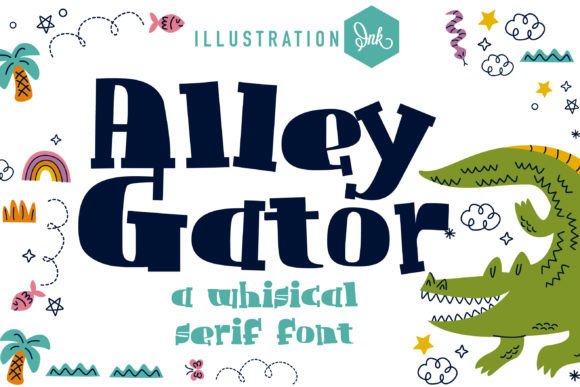
The Ultimate Guide to Alley Gator Font: Adding a Touch of Whimsy to Your Designs
I’ll never forget the time I was working on a project for a client who wanted a font that was both playful and elegant. I scoured the internet, tried out countless fonts, but nothing seemed to fit the bill. That was until I stumbled upon the Alley Gator Font! It’s a fun font that looks playful and fancy, with a mix of thick and thin lines that gives it a cool style. In this article, I’ll share my experience with Alley Gator, its features, and how to make the most of it in your designs.
An Honest Review of Alley Gator Font
So, what makes Alley Gator so special? Here are some things I love about this font:
• ✨ Unique style: The mix of thick and thin lines gives Alley Gator a distinctive look that’s hard to find in other fonts.
• ✅ Versatility: This font is perfect for a wide range of design projects, from invitations and greeting cards to logos and branding.
• 💫 Playful vibe: Alley Gator has a fun and playful personality that’s sure to add a touch of whimsy to your designs.
Of course, no font is perfect, and Alley Gator has a few small quirks:
• 🤔 Limited use in body text: While Alley Gator is perfect for headlines and titles, it may not be the best choice for body text due to its decorative nature.
• ⚠️ Some letter combinations may not work well: As with any font, some letter combinations may not work as well as others, so it’s essential to test the font thoroughly.
The Backstory of Alley Gator Font
The story behind Alley Gator is one of creativity and inspiration. According to its designer, Alley Gator was created as a way to capture the essence of urban landscapes and the whimsy of city life. The font’s unique style is inspired by the mix of old and new architecture found in city alleys.
What is the best use for Alley Gator Font? Alley Gator is perfect for designs that require a touch of whimsy and elegance, such as invitations, greeting cards, logos, and branding.
Is Alley Gator suitable for body text? While Alley Gator is a beautiful font, it may not be the best choice for body text due to its decorative nature. It’s best used for headlines and titles.